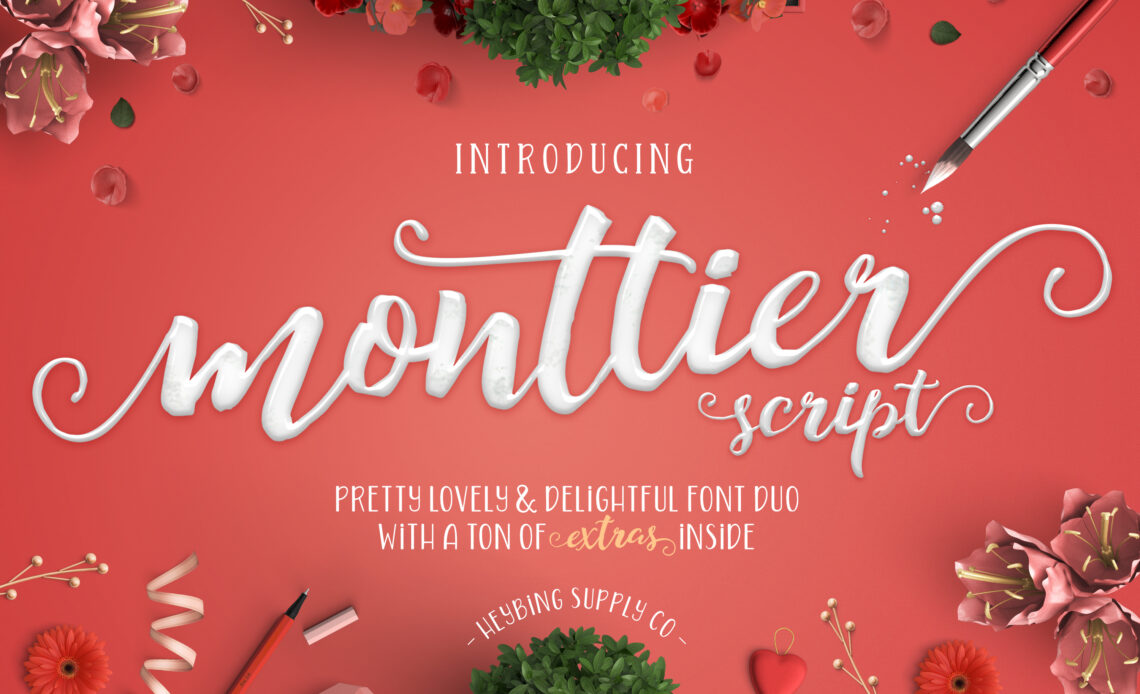
Welcome to the mesmerizing world of typography, where letters dance gracefully across the screen, leaving a trail of elegance and sophistication. Meet Monttier Script Font Duo, a captivating script font family that will ignite your creativity and elevate your designs to new heights.
Born from the artistry of Heybing Supply Co., this font duo combines the beauty of hand-painted characters with the charm of irregularities, resulting in a visual masterpiece. Experience the magic as Monttier's delicate strokes and playful ligatures intertwine, creating a symphony of words that captivate and enchant.
Quinte Typeface, the perfect companion to Monttier Script, adds a touch of clean simplicity, providing a harmonious balance to your designs. Its crisp lines and understated elegance serve as an ideal backdrop for Monttier's expressive strokes, allowing your words to shine with clarity and impact.
This dynamic duo is not just a collection of fonts; it's an invitation to embark on a creative journey, where every letter becomes a brushstroke, every word a piece of art. Unleash your imagination and watch your designs transform into captivating visual stories that leave a lasting impression on your audience.
With Monttier Script Font Duo in your design arsenal, you'll possess the power to create logos that speak with eloquence, branding that exudes personality, and social media graphics that capture attention like never before. Whether you're designing for print or web, Monttier's versatility knows no bounds, adapting seamlessly to any project with grace and charm.
But that's not all! This remarkable font duo comes with a treasure trove of extras that will amplify your design possibilities. Discover a collection of hand-drawn ornaments, borders, and flourishes that add a touch of whimsical beauty to your projects. Let your creativity soar as you incorporate these embellishments into your designs, creating works of art that evoke a sense of wonder and delight.